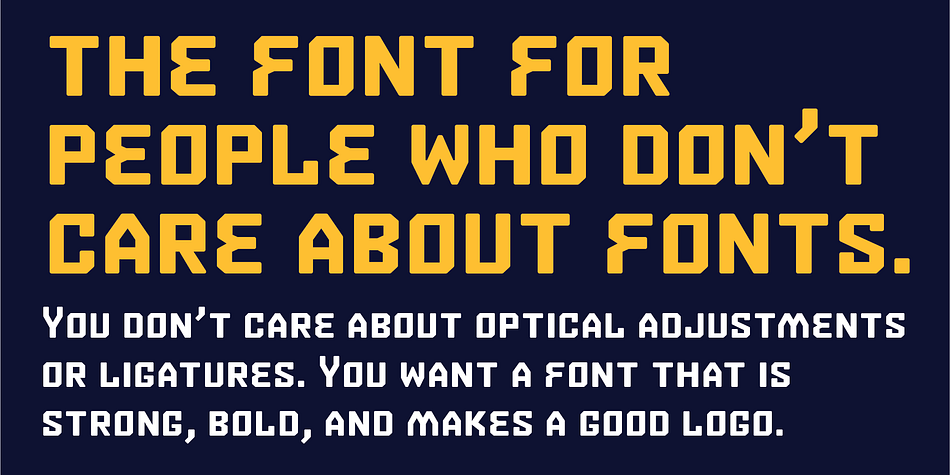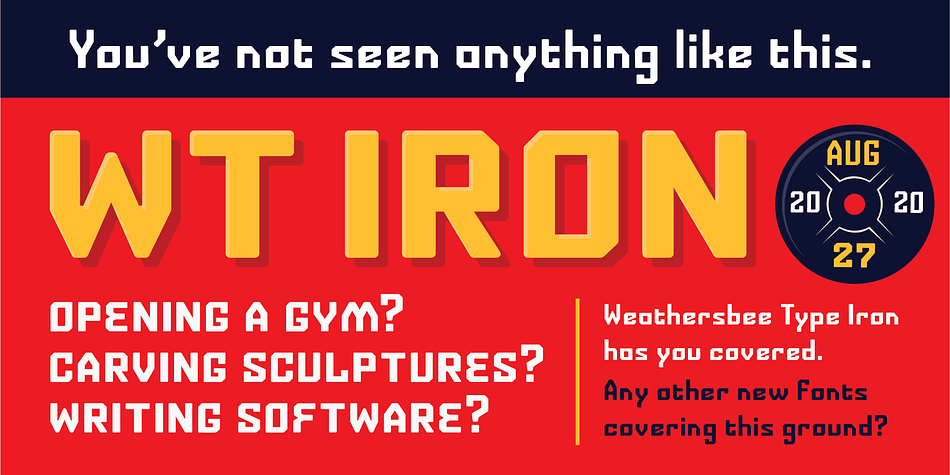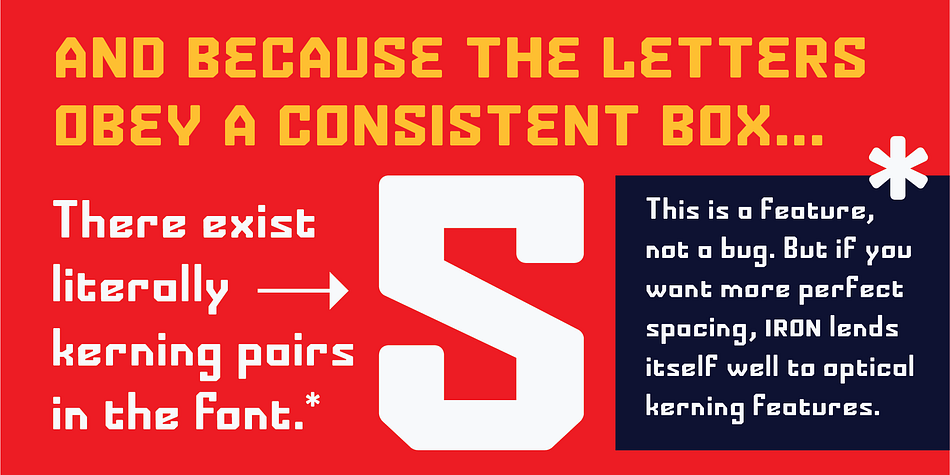
WT Iron
WT Iron is a display sans font family. This typeface has two styles and was published by Interrobang Type.
The latest addition to my type library is a font which I couldn’t have imagined 3 weeks ago, but boy am I glad that I made it. Much like the original Weathersbee font staple, Franchise, it can play an outrageous number of typographic roles; the difference here is that WT Iron brings the power, the aggression, the energy, and brings the dorky shapes of a sci-fi tech font.
WT Iron is a font whose genesis, like many of my type ventures, lies in the extension of a work-a-day task. In this case, I got a “simple” ask from my brother to cut out WEATHERSBEE into wood to complete his 2020-induced home gym using my CNC. I have never been a fan of the bland jersey letter style, but needed to match it but add a little character to it. So a couple hours yielded a full uppercase alphabet.
An accidental shortening of “W” turned into small caps and numbers, which didn’t seem to make sense without lowercase. So a couple rapid-fire sessions later, refusing to introduce curves or new DNA, I had a full and surprisingly strong, memorable display font.
I hope your are as giddy as myself about how much of a chameleon the face is — but not in an invisible way. It takes on the mood of its topic or industry, and appears as a font designed specially for it. Don’t believe me? Type your company name in the tester, and I bet it somehow feels appropriate.